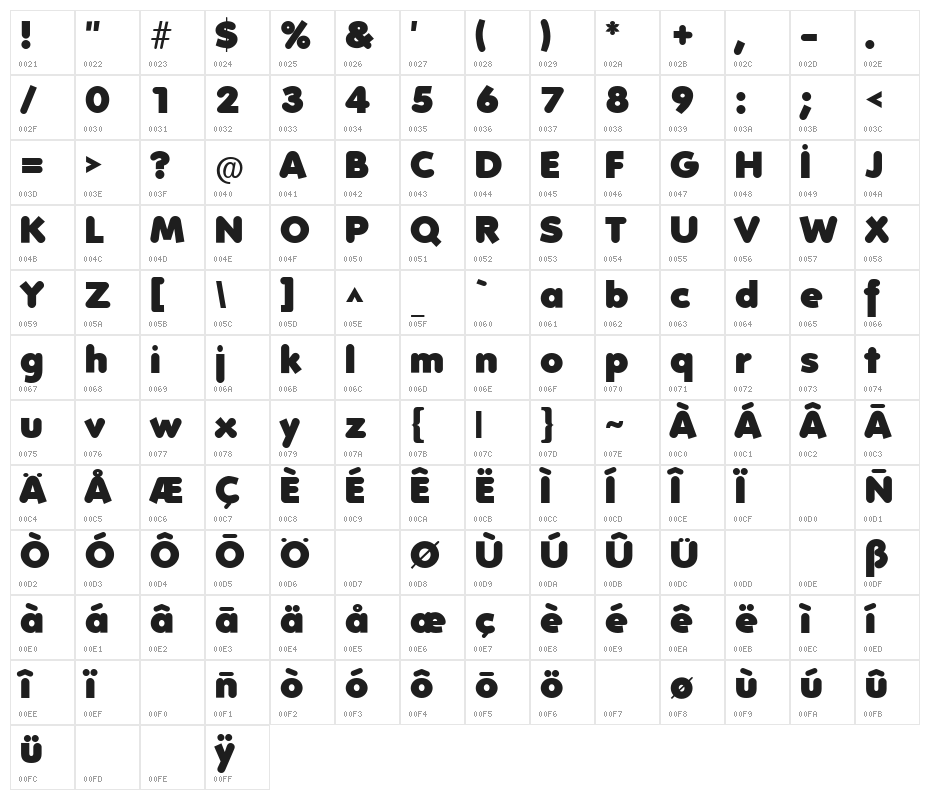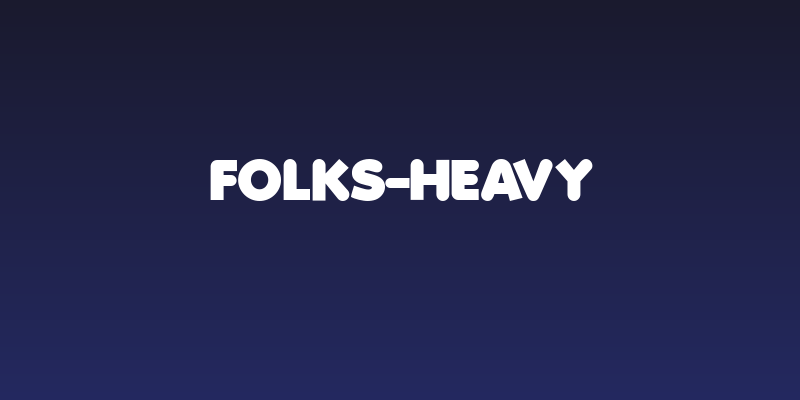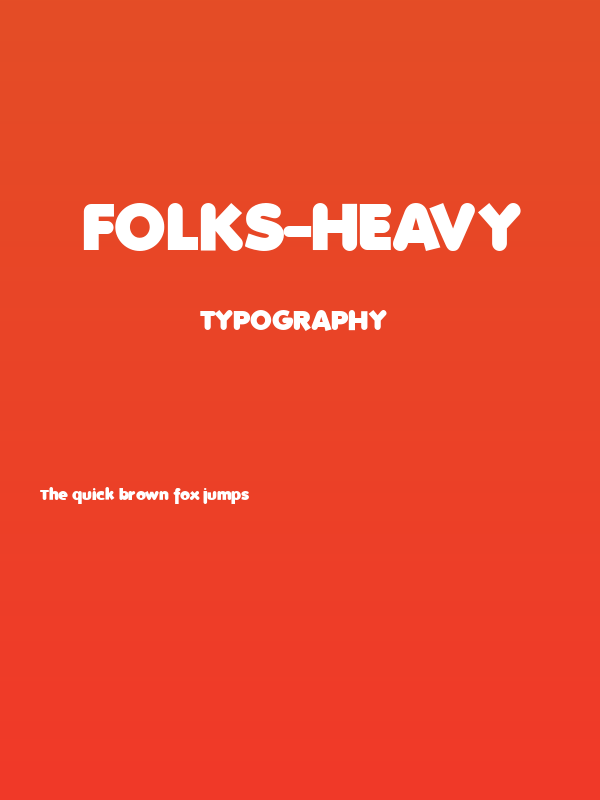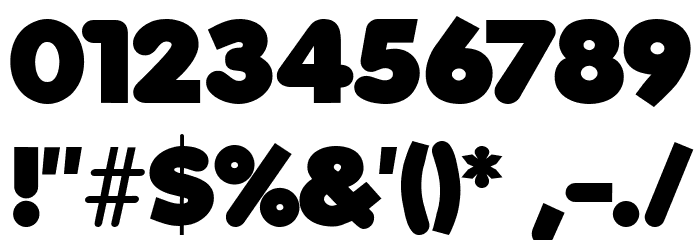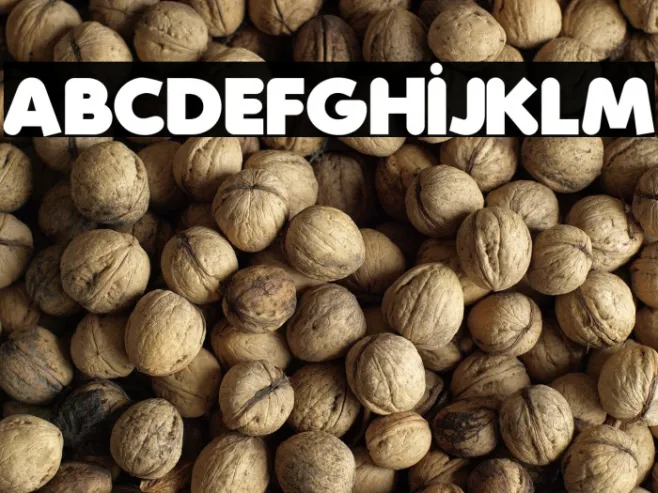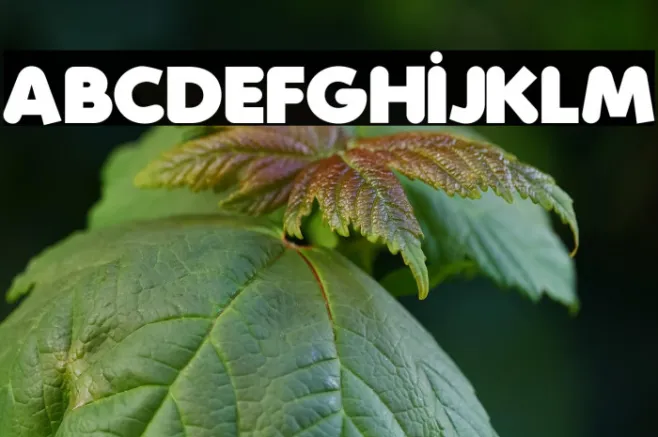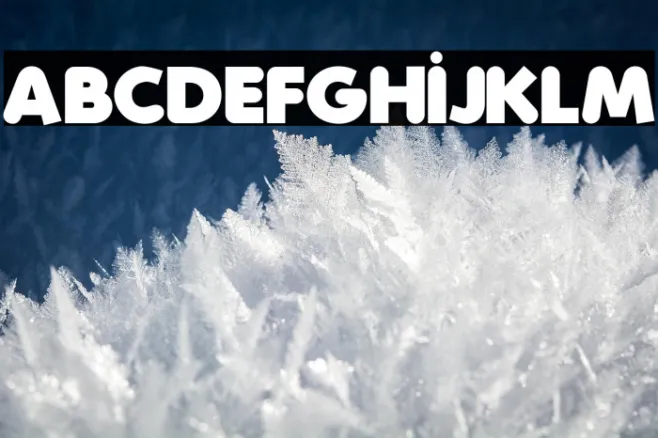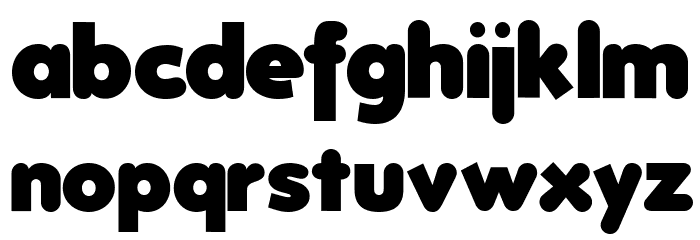
Folks-Heavy Font
Folks-Heavy Description
This font features bold, rounded characters with a playful and friendly appearance. The letters are thick and uniform, providing a strong visual impact. The rounded edges give it a soft, approachable feel, making it suitable for designs that aim to convey warmth and friendliness. The numbers and special characters maintain the same boldness and rounded style, ensuring consistency across all elements. This font is highly legible and stands out due to its substantial weight and smooth curves.
| Overall Style | Playful |
| Proposed Projects | Ideal for children's books, playful branding, posters, and social media graphics. |